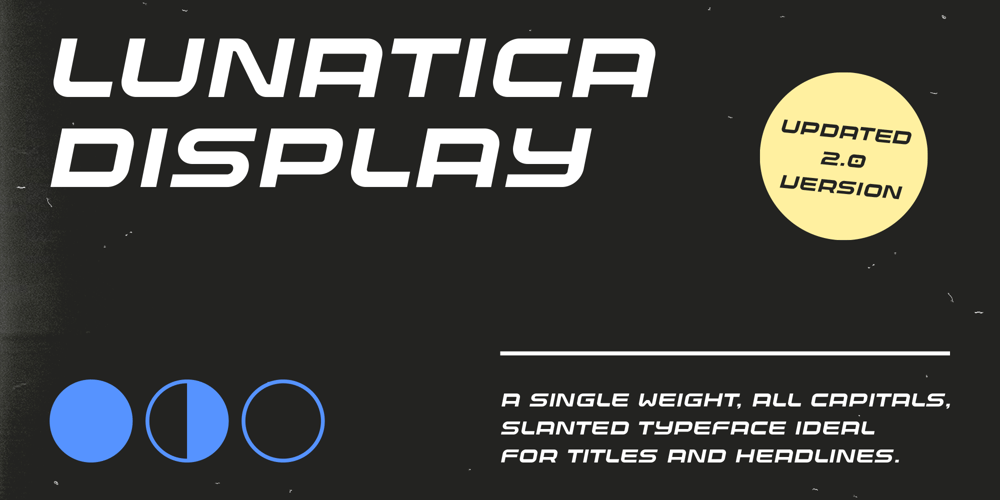
Lunatica Font Family was designed by André do Carmo Gonçalves and published by André do Carmo Gonçalves. Lunatica contains 1 styles and family package options. Lunatica Display is a single weight, all capitals, slanted typeface ideal for titles and headlines due to its strong presence. It is constructed in a very modular fashion, stepping away from some typographic conventions, while keeping the form of its characters familiar and easily recognisable.This typeface is heavily inspired on the aesthetics of the space related sci-fi movie genre, specifically on the movie Moon (2009), directed by Duncan Jones and starring Sam Rockwell, from where it also picks up the inspiration for the name “Lunatica”. It was first designed as a branding exercise, thought to be the official typeface of Lunar Industries Ltd. — the company through wich the movie exists and unfolds.You can use Lunatica Display in more conventional contexts like branding but also in more experimental and futuristic-looking ways.